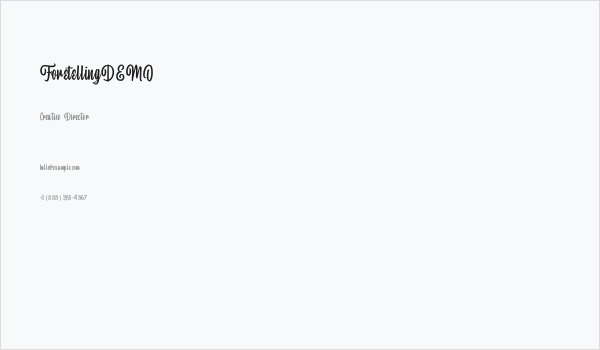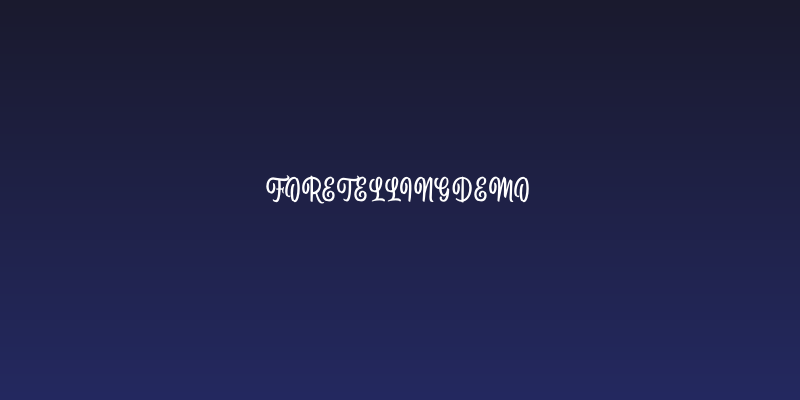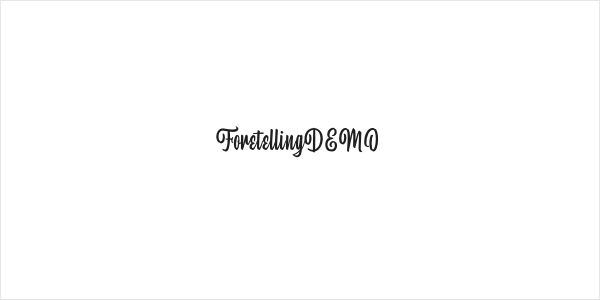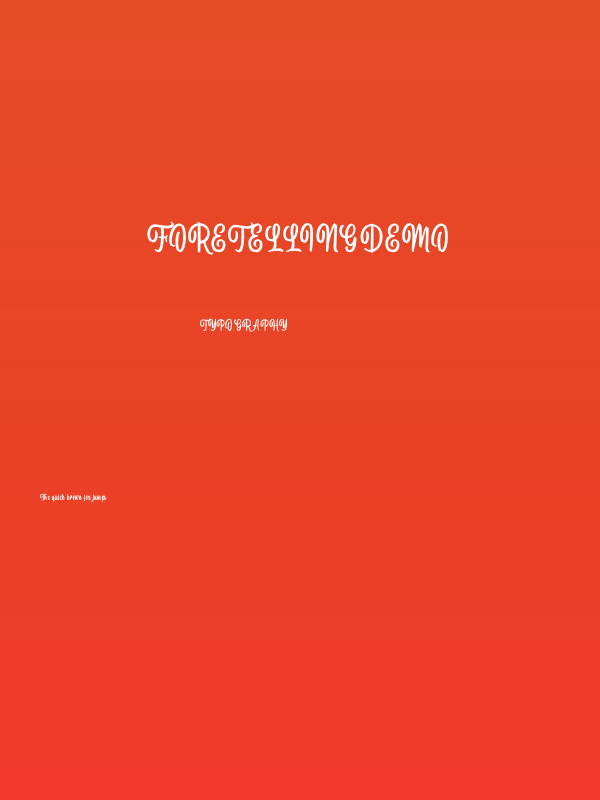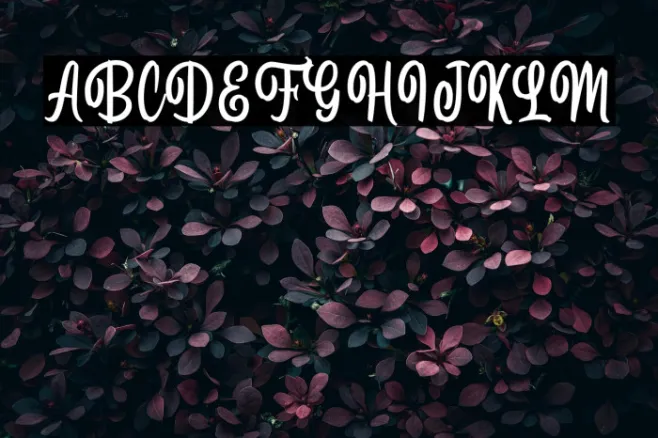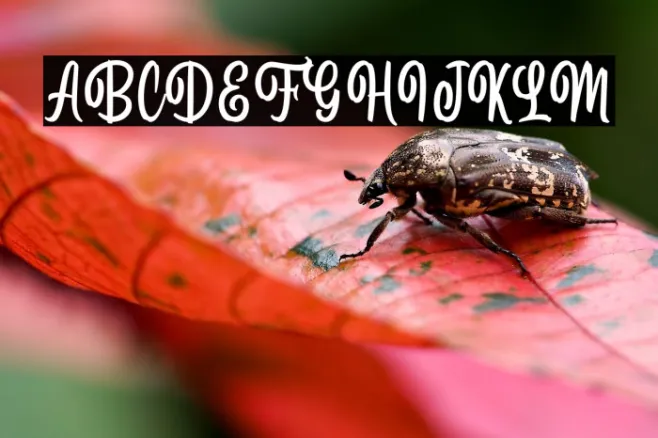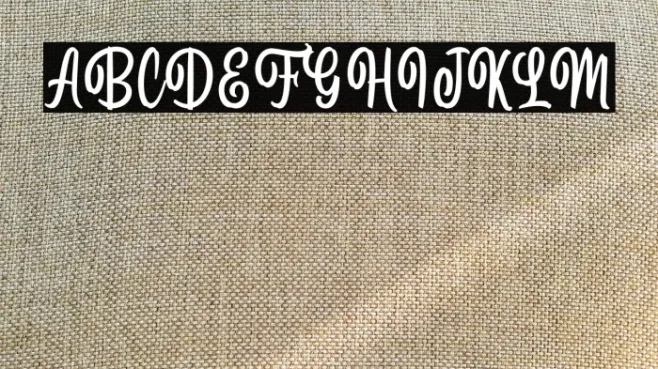
ForetellingDEMO Font
ForetellingDEMO Description
This font features a playful and elegant script style with a flowing, cursive design. The uppercase letters are bold and ornate, with distinctive loops and flourishes that add a touch of sophistication. The lowercase letters maintain a consistent style, offering a smooth and connected appearance that enhances readability. The numerals are clear and well-defined, complementing the overall aesthetic. Special characters are thoughtfully designed, maintaining the font's cohesive look. This font is ideal for projects that require a personal and artistic touch.